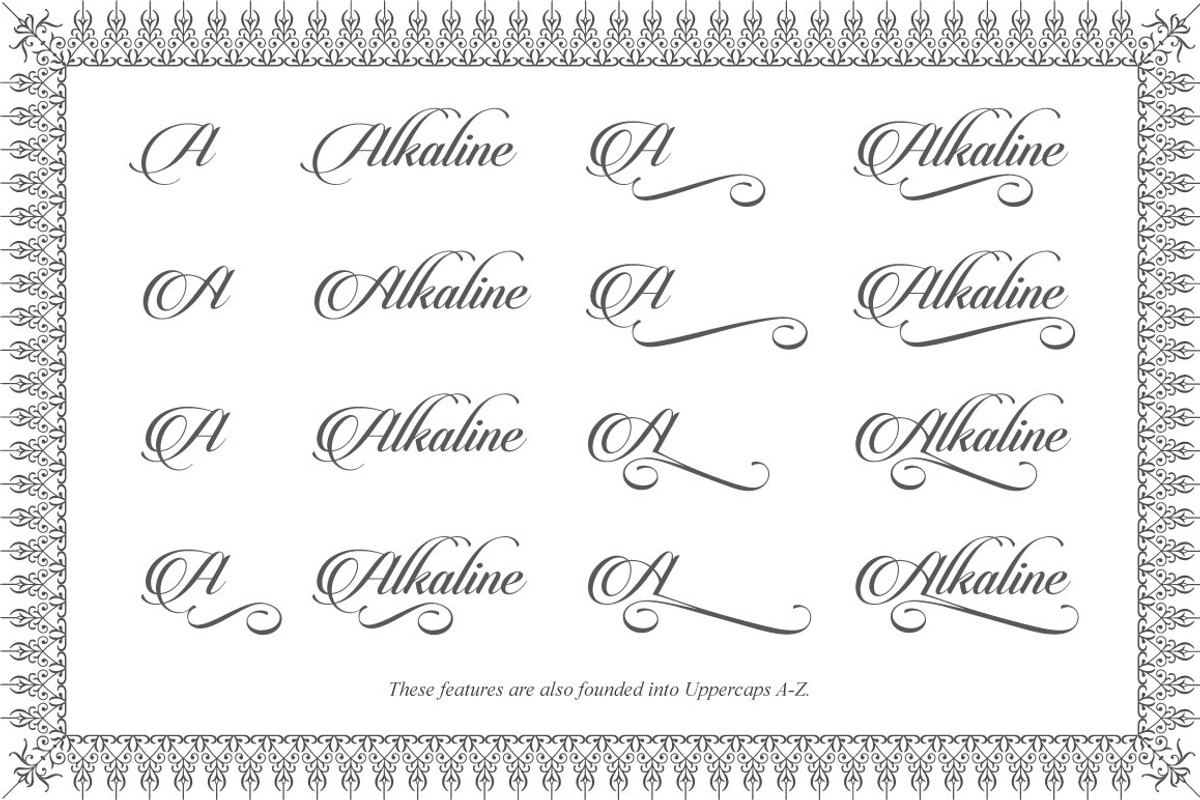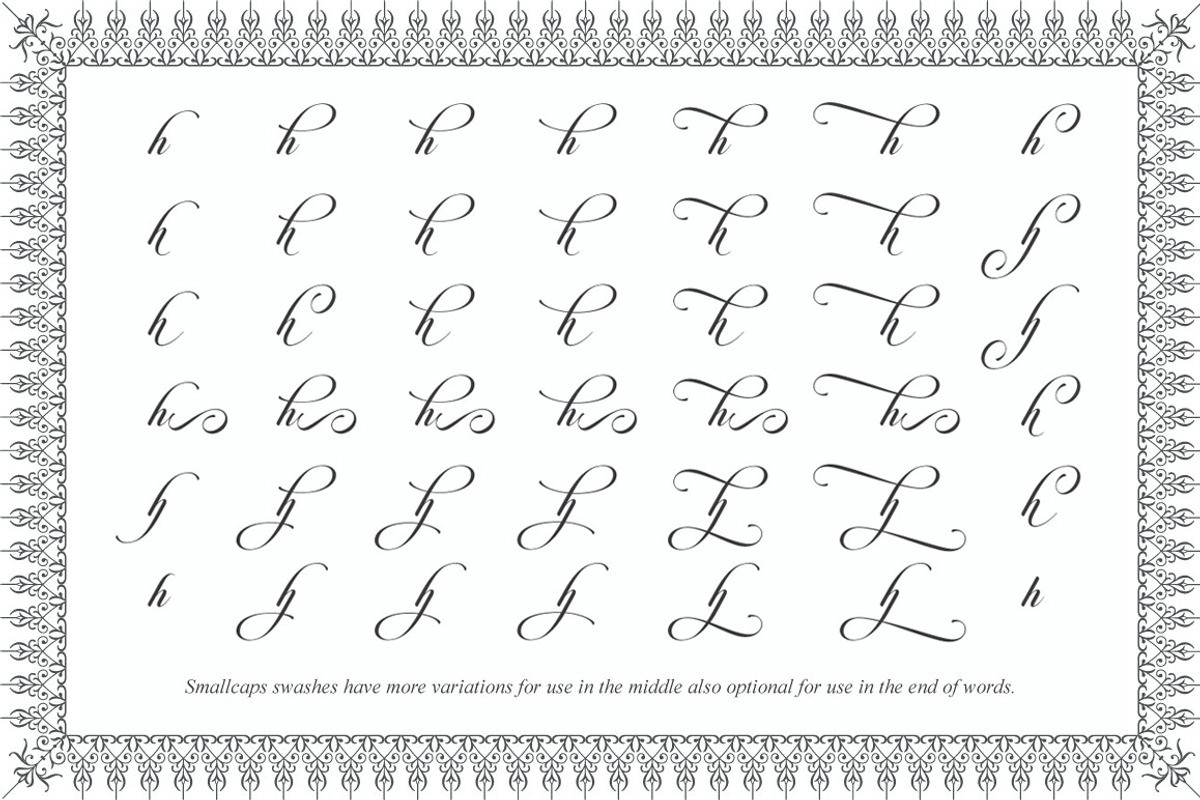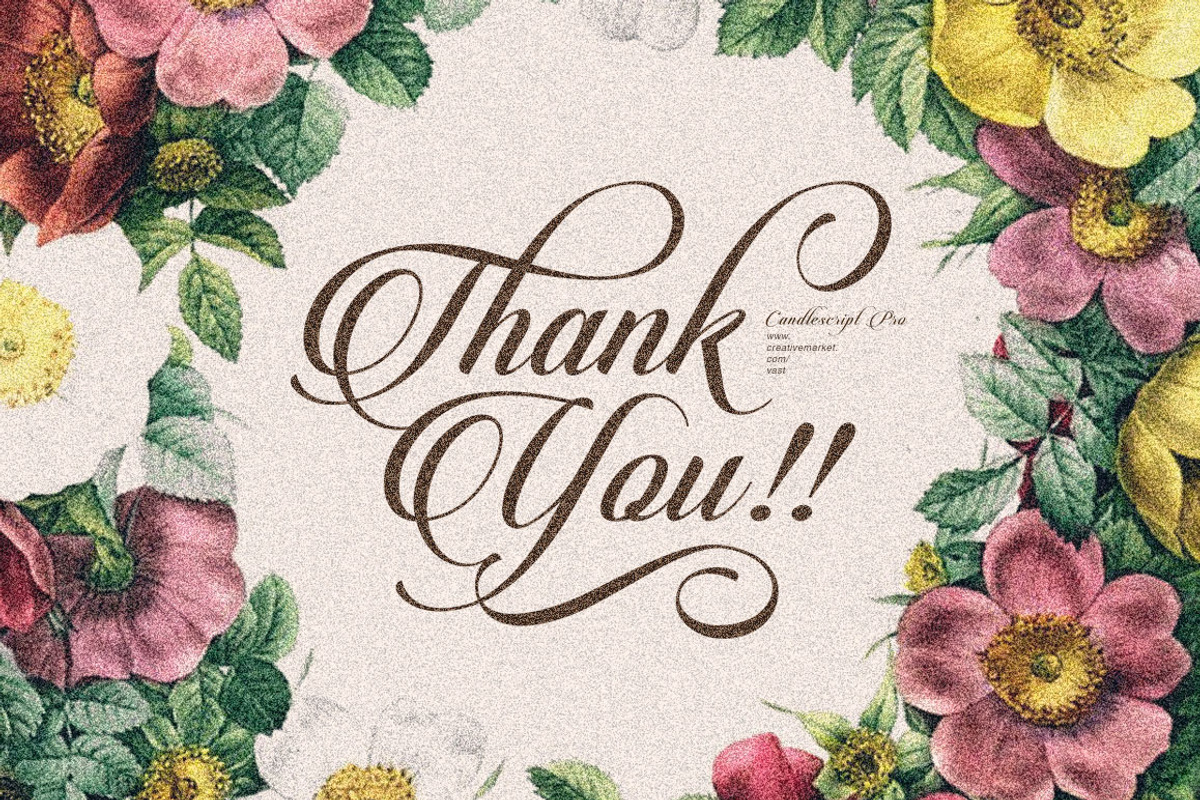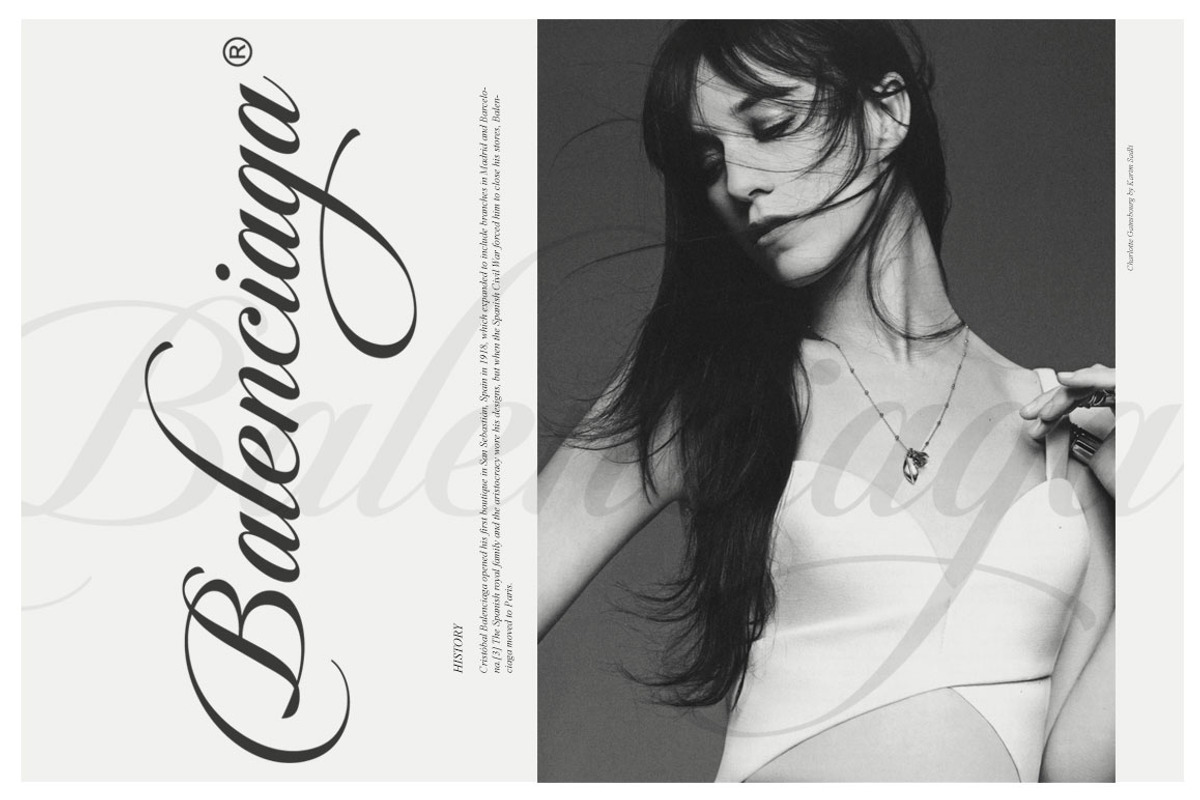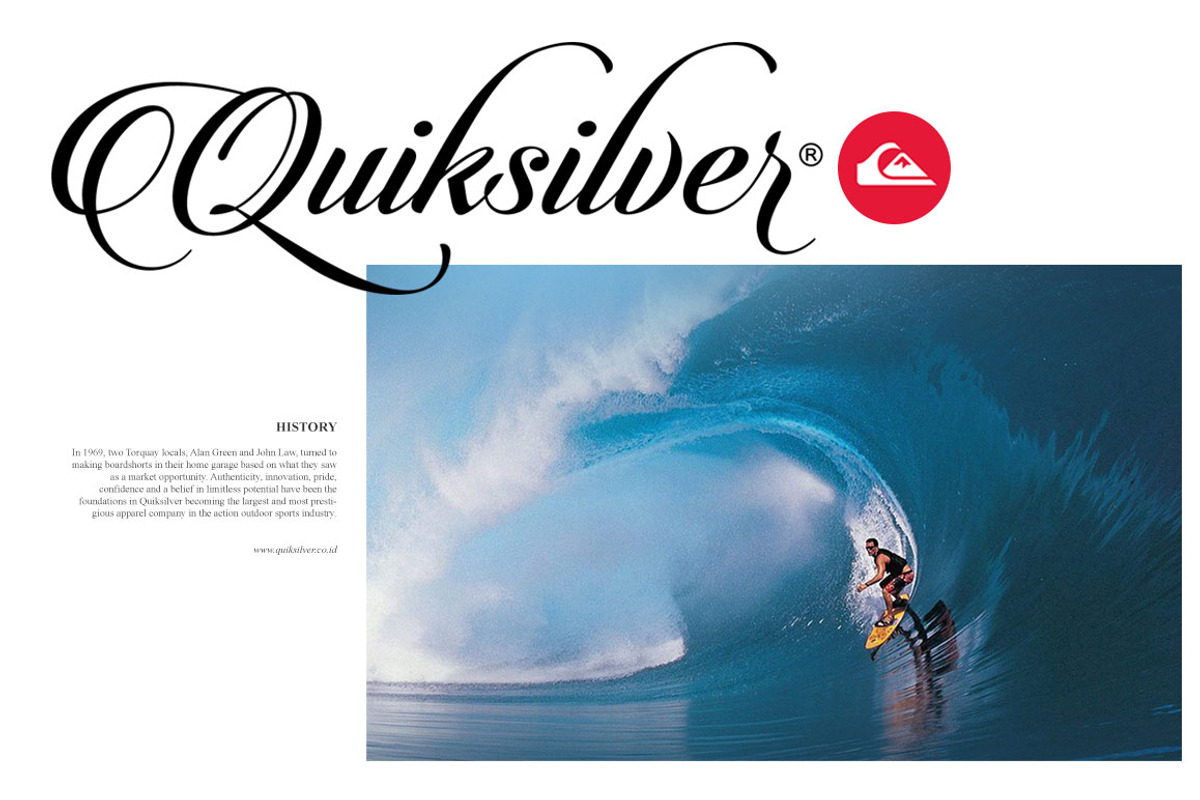
CANDLESCRIPT PRO + PER PARTS VERSION
The Candlescript Pro font was designed by M Fairuzulhaq aka Ve, founder Vast (logotype & independent type foundry from Indonesia), and first published in August 2014. The Candlescript Pro font has a script and italic style. The body text of Candlescript font has been designed with high details, precisely, smooth and flow, so it is perfect used as a logotype, custom typeface, tittle, header, or any kind of advertisements purpose.
Candlescript font also very adaptable when combined with other fonts, whether it is a Serif, Sans Serif, or Slab Serif. It allows the Candlescript font to be one of the multi-functional display font option and it will surely beautify your layout and looked very professional. The Glyphs variations are not working automatically, but you can access by manually and for the best results are needed for your creativity in combining these variations Glyphs.